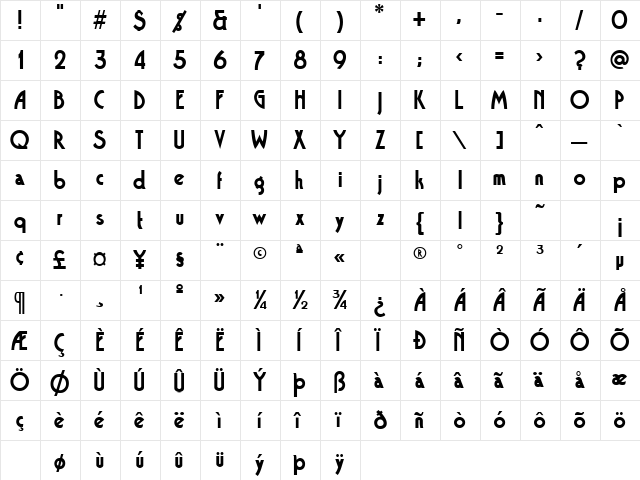
Bandstand Regular
Design Context for Bandstand Typeface
Bandstand offers clean, dependable letterforms without strong stylistic allegiance, making it a practical choice for designers who need flexibility.
Pro Tip: Pair Bandstand with a font of contrasting weight or personality to build a more expressive typographic hierarchy.